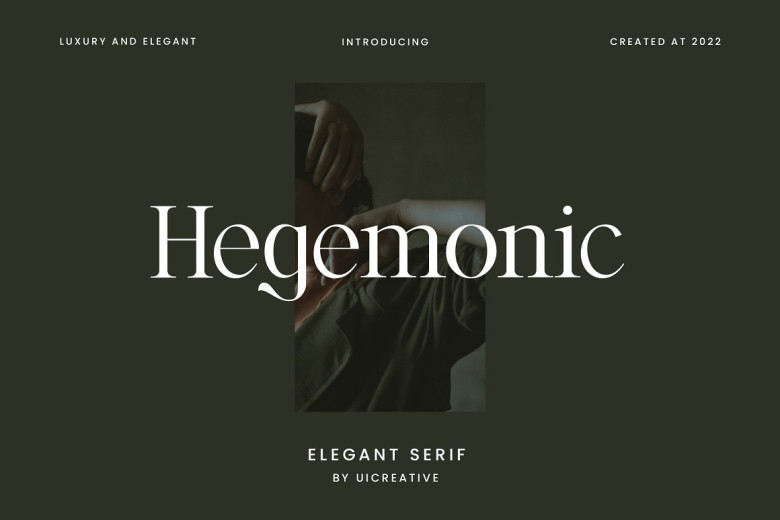
Hegemonic Font
Introducing our new product Hegemonic Elegant Serif Font. is an eco-friendly Modern Serif font that feels just beautiful elegant and modern all at the same time. This font is ideally suited to a wide variety of projects, such as signature, stationery, logo, wedding, typography quotes, publication jacket design or editorial page layout in leather bindings for high-end magazines, book covers, website headers and banners on the front view alongside columns of text content, clothing tags and branding packaging design. Corresponding logos can also be used for merchandise. Fashion-related branding or editorial layout displays both the masculine and the feminine.
Hegemonic Elegant Serif Font